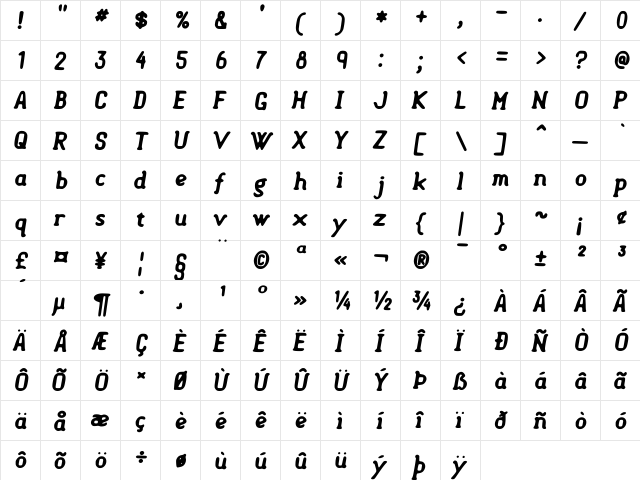
Semi-Sweet Bold-Italic
| Designer | Walter E Stewart |
Design Context for Semi-Sweet Typeface
Semi-Sweet offers clean, dependable letterforms without strong stylistic allegiance, making it a practical choice for designers who need flexibility. Its italic angle brings a sense of urgency and motion to the letterforms. The heavy weight commands attention and anchors typographic hierarchies.